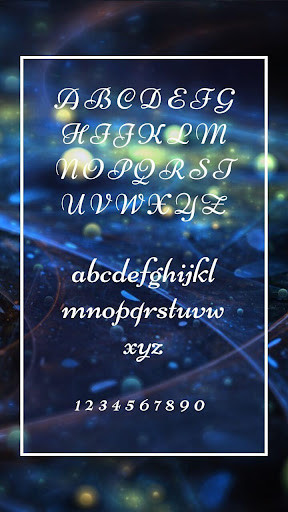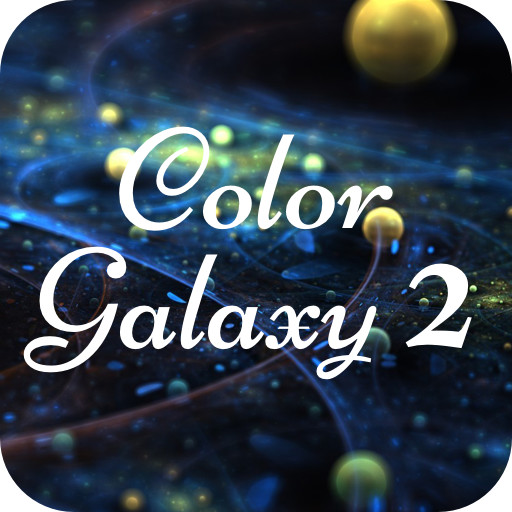
You can find the amazing and perfect font style which fits your taste well.
Lovely, sweet and colorful as you wish.
Hundreds of selected fonts style from handwritten fonts like ColorGalaxy2, such as cute, darker, comic, galaxy, love, pink, sexy written, colorful fonts, clean fonts, candy fonts, etc.